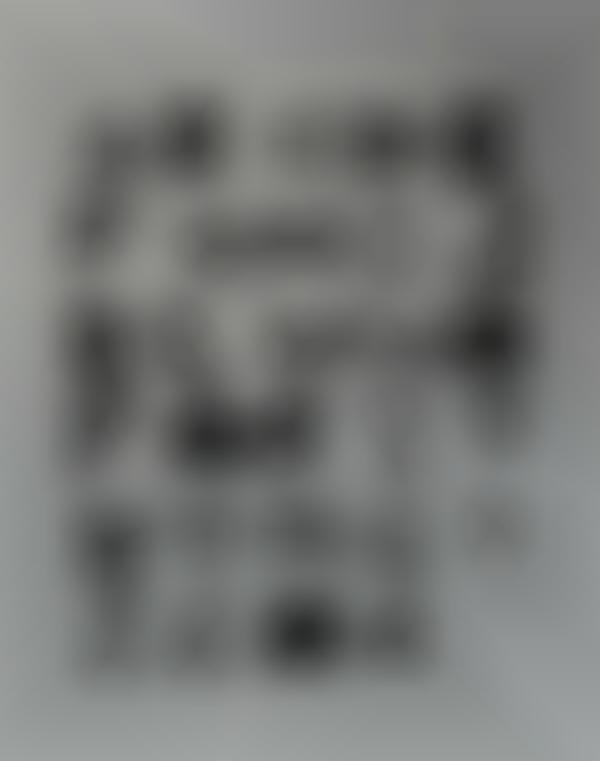
Origami has always been a widely respected art form down from the smallest creation to giant six foot wide models. The Ole Fredrik Ekern Gami Font is the first time I've seen these paper cranes used as lettering.
Mr. Ekern has used the manipulation of paper to create all 26 finely crafted letters. The time it must take to create an elaborate work of art like that would be staggering, although I guess if you're a master than it's nothing more than child's play.
I just hope the Ole Fredrik Ekern Gami Font becomes a downloadable font so I can start writing all of my articles in it.
Paper Crane Lettering
The Ole Fredrik Ekern Gami Font Lets Your Words Take Flight